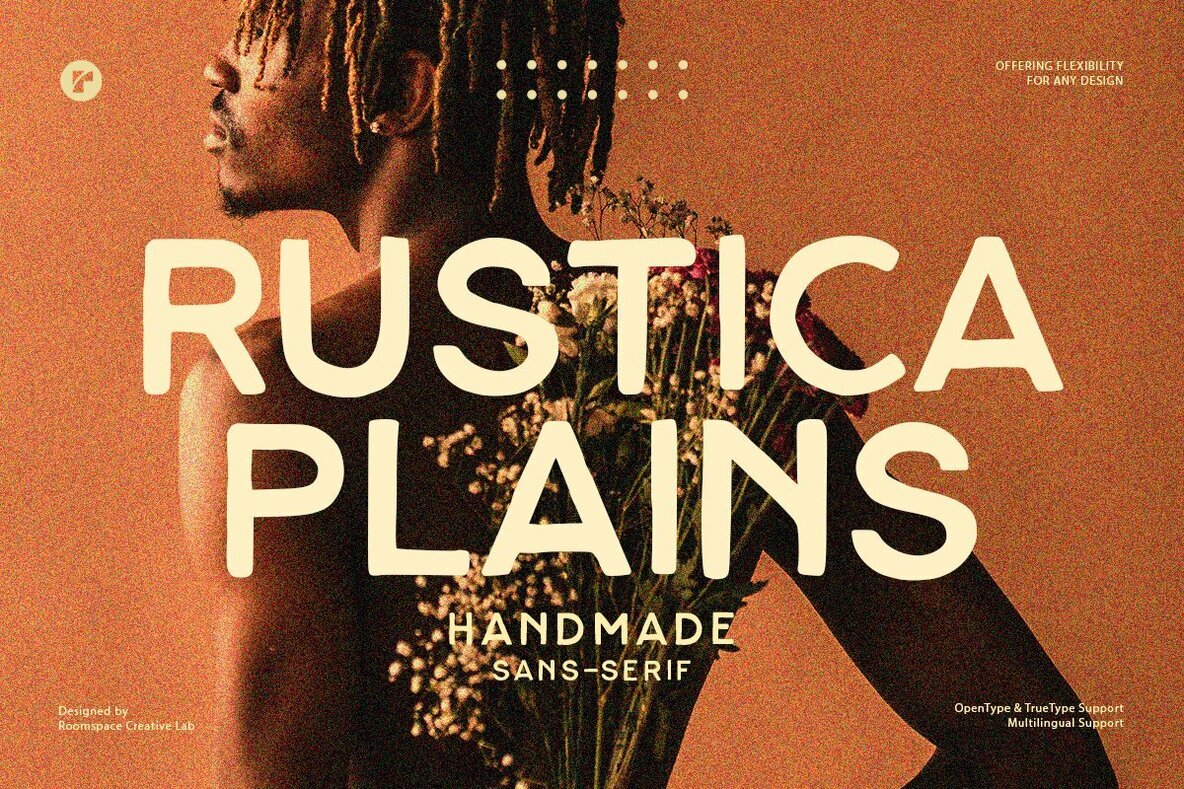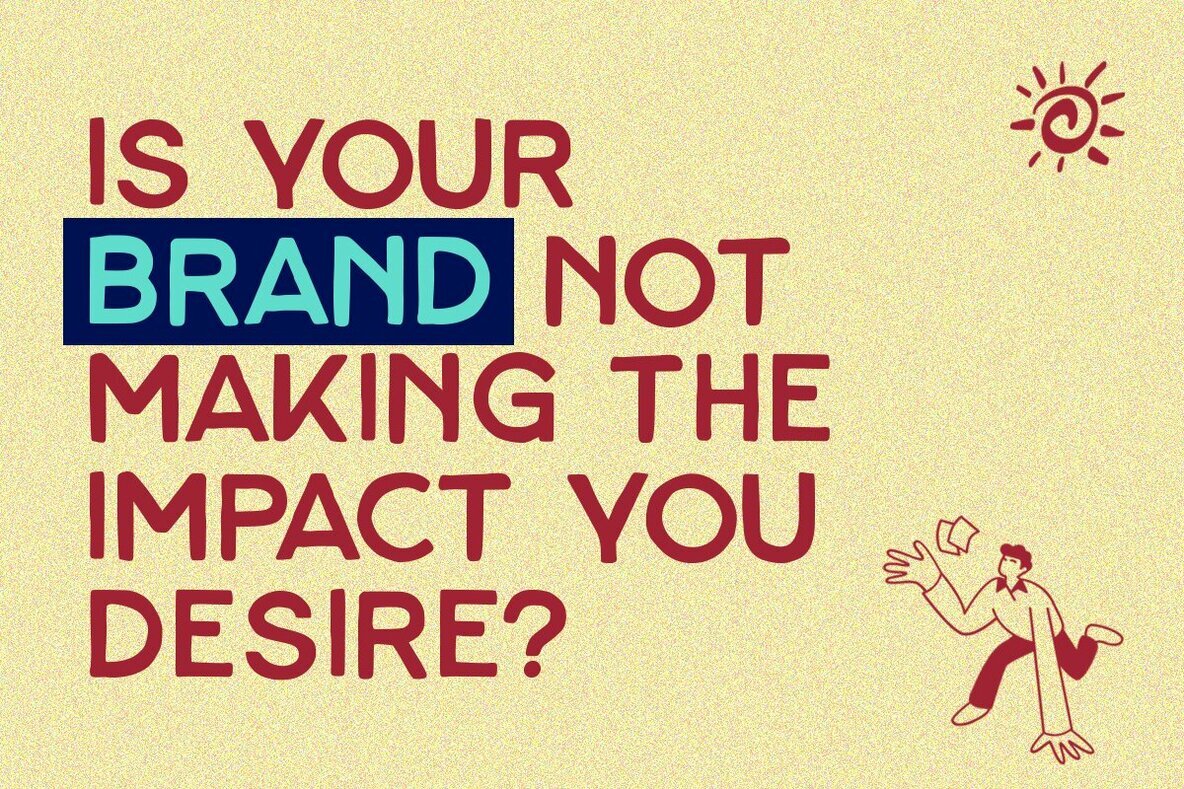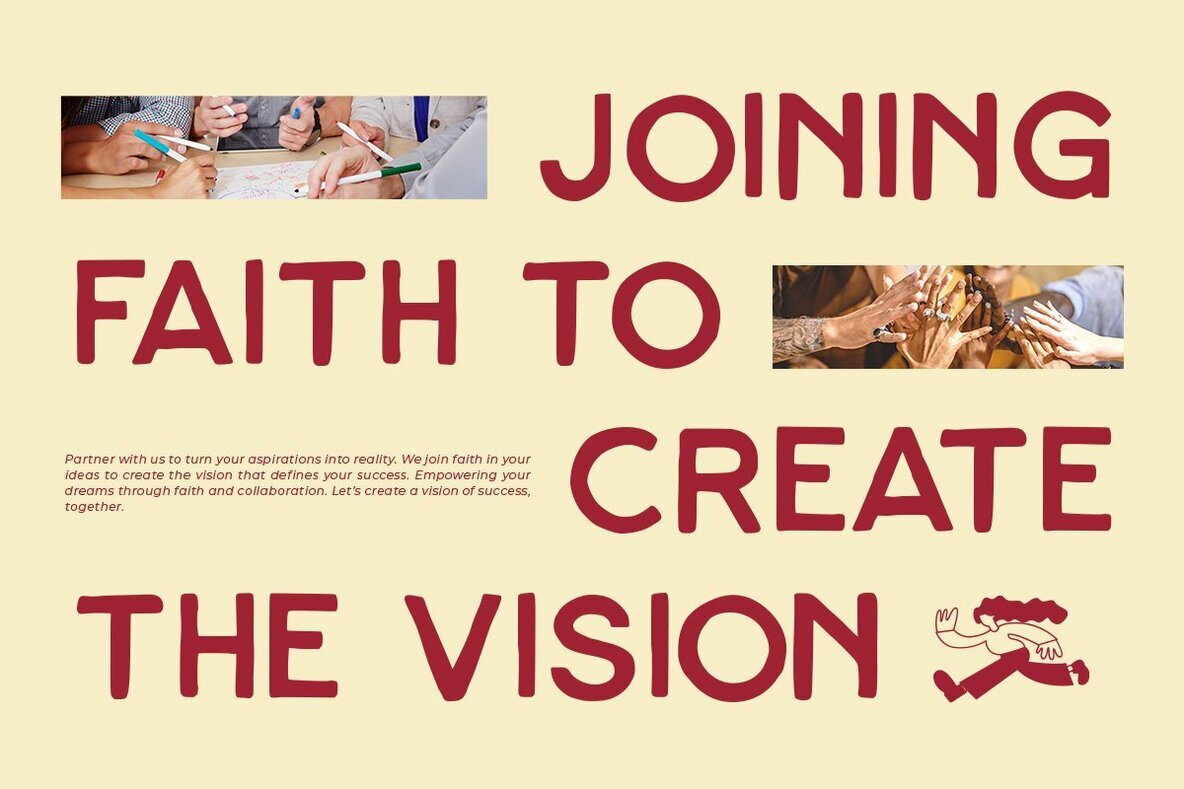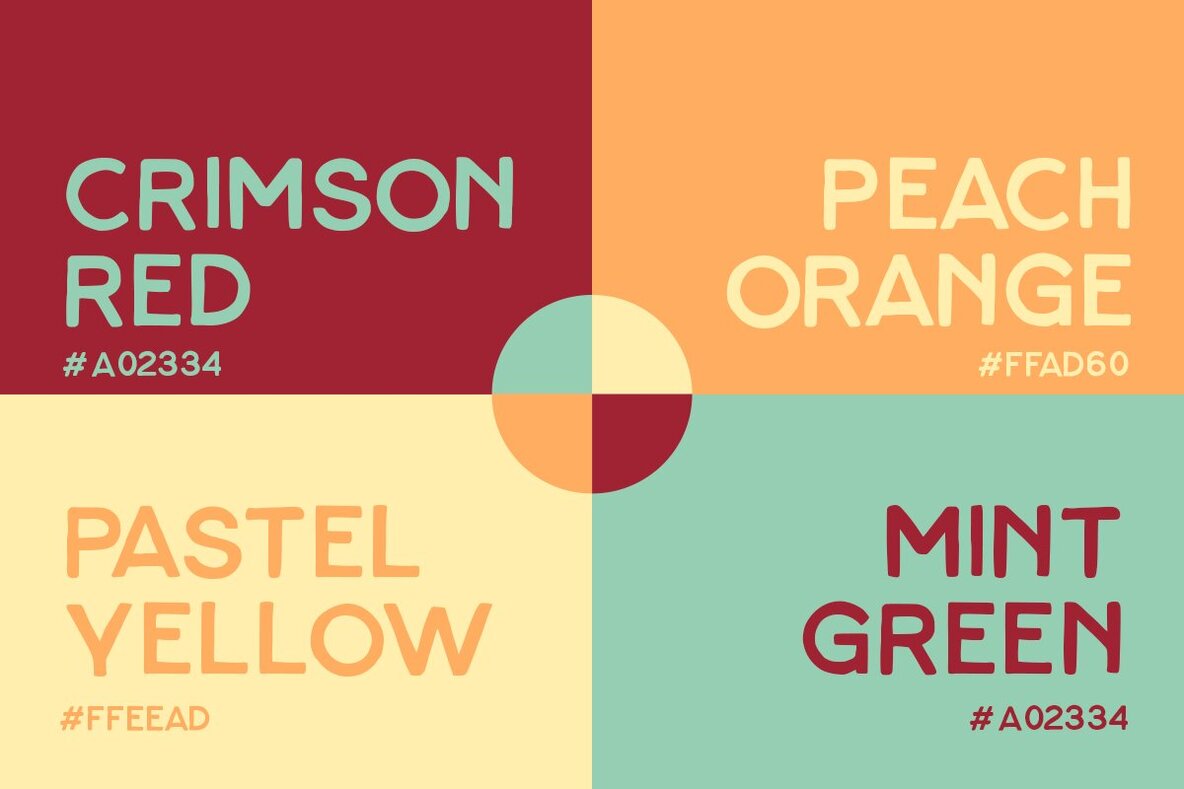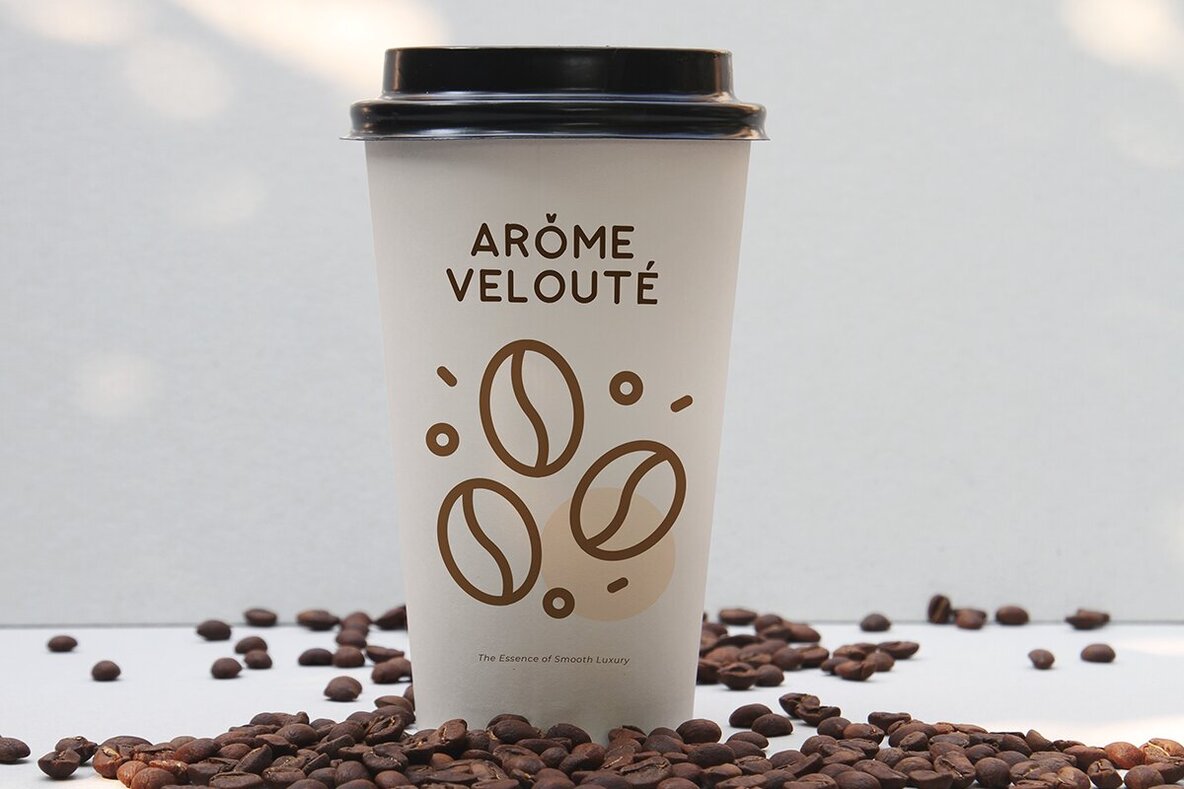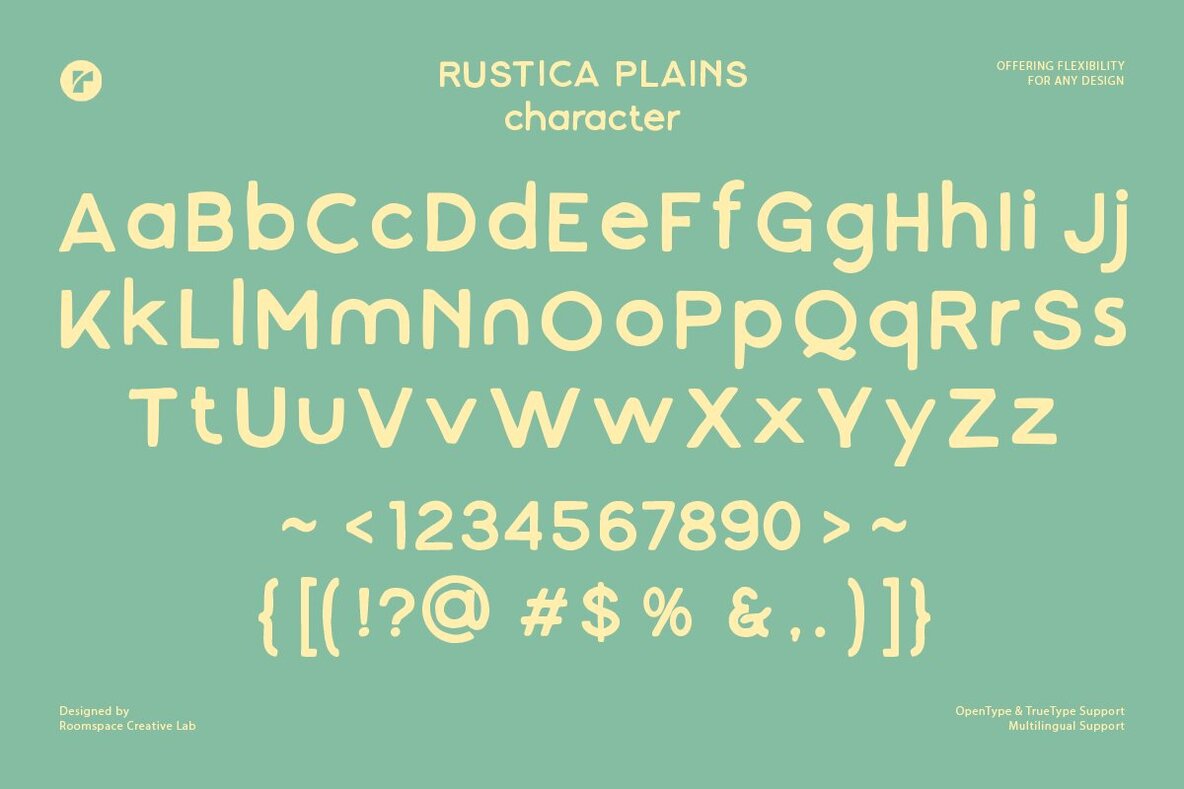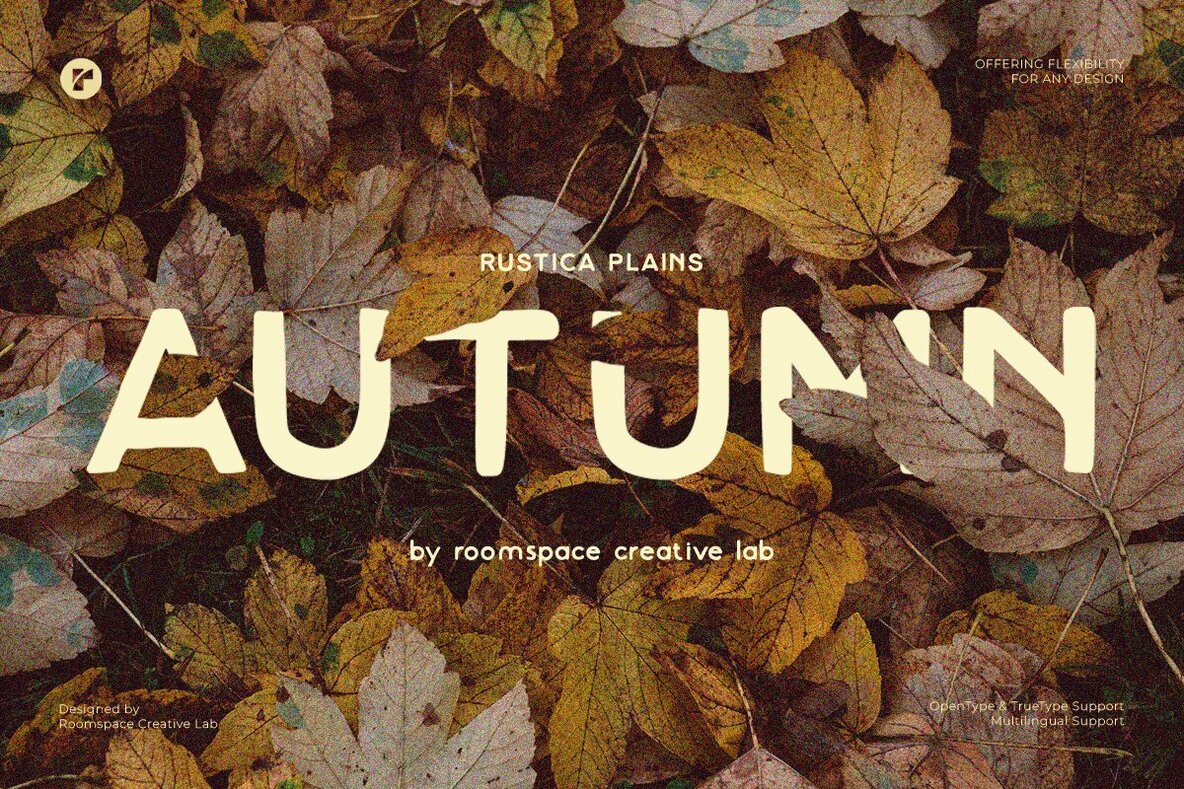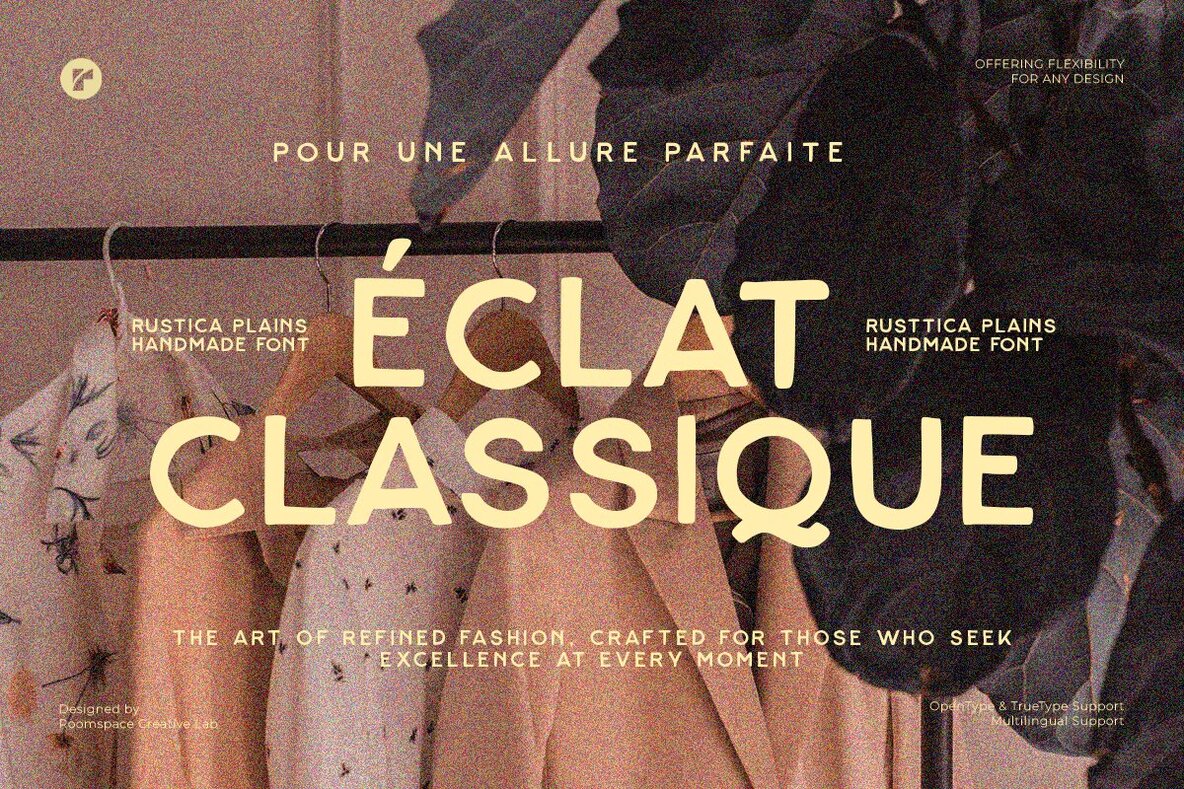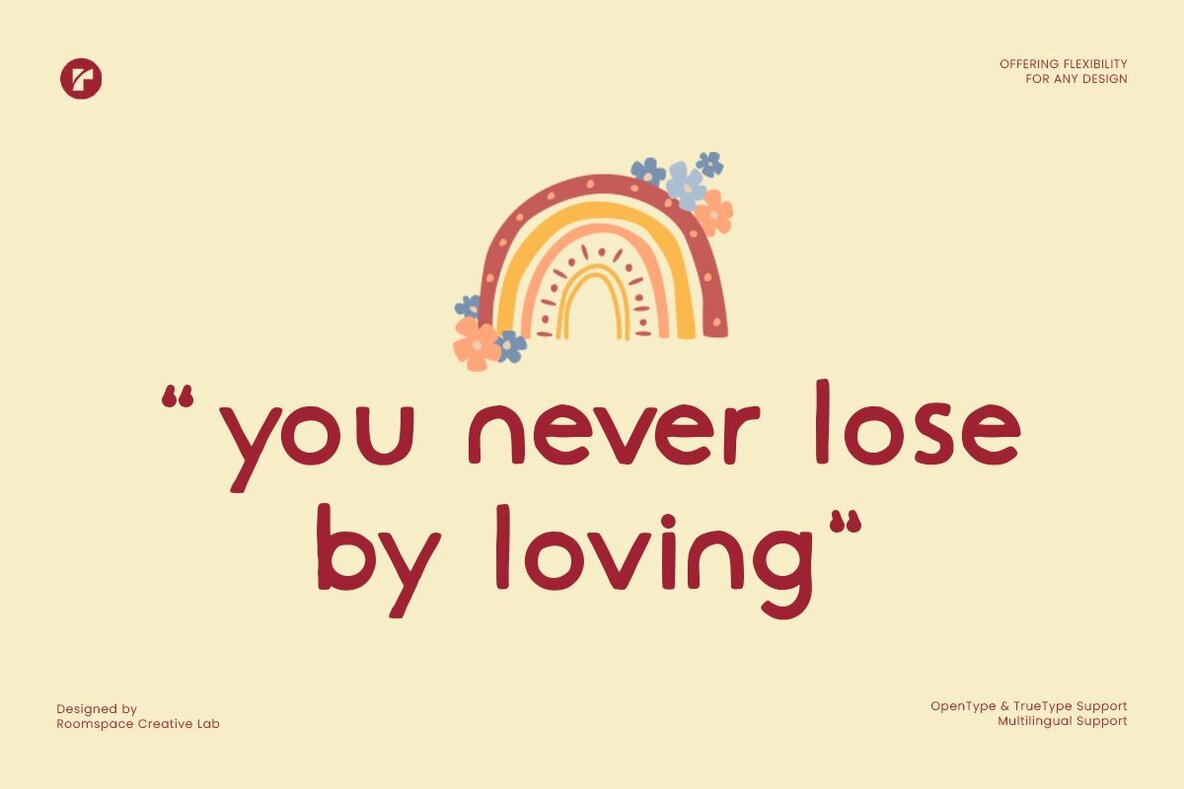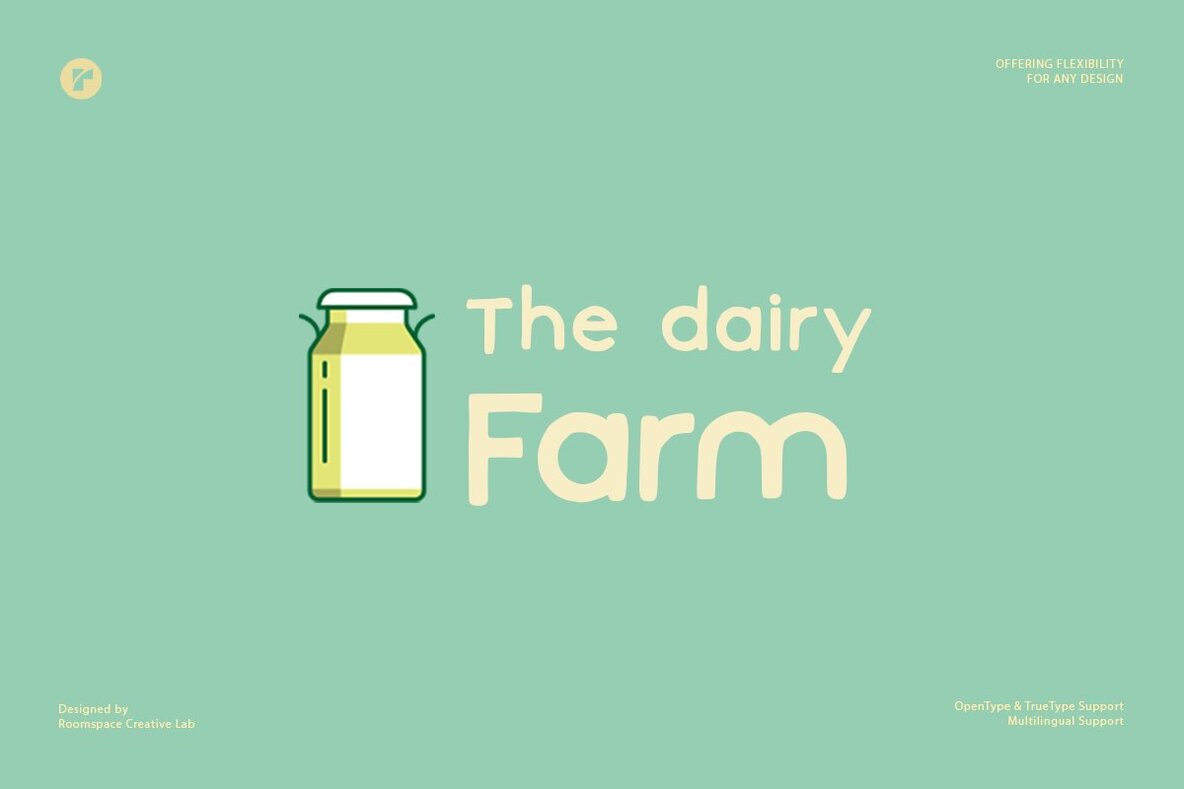
Rustica Plains Font
Rustica Plains
Rustica Plains is a handcrafted sans serif font designed to add a touch of modern elegance to any project. With its unique handwritten style, this font is perfect for branding, logos, social media, posters, invitations, and more. Its clean yet rustic appearance ensures both readability and aesthetic appeal, making it versatile for both professional and creative designs. Features: Rustica Plains brings the perfect balance between modern and handmade, making it an essential choice for designers seeking originality and style.